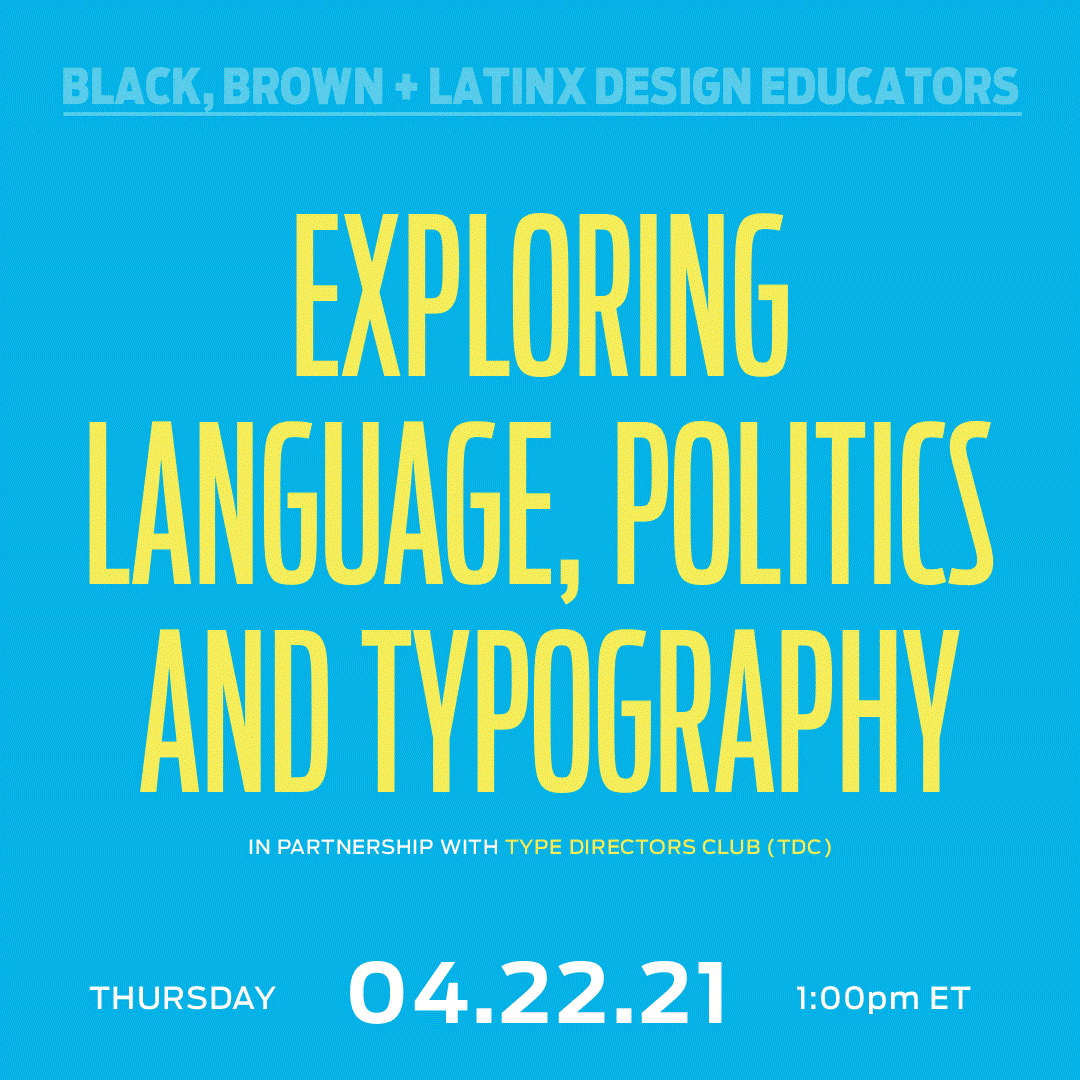
Exploring Language, Politics and Typography: Kelly Walters
David Jon Walker, Shantanu Suman, and Kelly Walters discuss the intersection of language, politics and typography in their design practice.
Join designer Kelly Walters, author of the new book Black, Brown + Latinx Design Educators: Conversations on Design and Race, alongside design educators David Jon Walker and Shantanu Suman as they discuss the intersection of language, politics and typography in their design practice.
In this panel discussion, Kelly will share highlights from the interviews in her new book, and engage in a critical dialogue with contributors Shantanu and David about how handwritten calligraphy has the power to express necessary political truths and how Indian culture can be explored through Devanagari.
Together they will share where they find inspiration and how they have navigated the design industry.